Diwali, also known as the Festival of Lights, is one of the most vibrant and joyful celebrations in India. Streets are decorated with sparkling lamps, homes are filled with colorful rangoli patterns, and everywhere you look, it’s pure magic.
But when it comes to design, Diwali isn’t just about lights and colors. Typography plays a huge role in setting the right festive mood. Using the right font can instantly make your design look authentic, cultural, and full of life.
Diwali is all about traditions mixed with celebration. That’s why Indian-inspired fonts work so well, they carry those decorative details and bold shapes that make your posters, invitations, and social media graphics pop. Whether you’re designing a Diwali greeting card, a shop promotion, or an Instagram post, the right font will make your design shine brighter than a diya.
Lumitra, a Hindi-inspired typeface that’s basically the Diwali of fonts: bright, elegant, and full of celebration vibes. Think glowing diyas, colorful rangoli, and that warm, festive feeling you can almost hear in the background.
Packed with 2 styles: Regular for a clean and classy look, and Inkbleed for that rustic, hand-painted charm (perfect for posters, invitations, or any project that needs a little extra soul).
If you’re designing for festivals, weddings, menus, or just wanna add a dash of Bollywood drama to your work — Lumitra brings the sparkle.
2. Bharvati, your ultimate Indian style display font that’s bursting with festive vibes! Inspired by the beauty of Diwali lights, traditional patterns, and elegant curves, Bharvati blends cultural charm with modern design flair. The bold strokes and flowing lines make it perfect for headlines, invitations, branding, or any project that needs a touch of India’s vibrant spirit.
It comes in two styles: Regular for a clean, polished look, and Ink Bleed for that artistic, handcrafted vibe. Whether you’re designing festival posters, packaging, social media graphics, or wedding cards, Bharvati will light up your design just like a Diwali diya.
Bring warmth, culture, and celebration into your typography with Bhavarti!
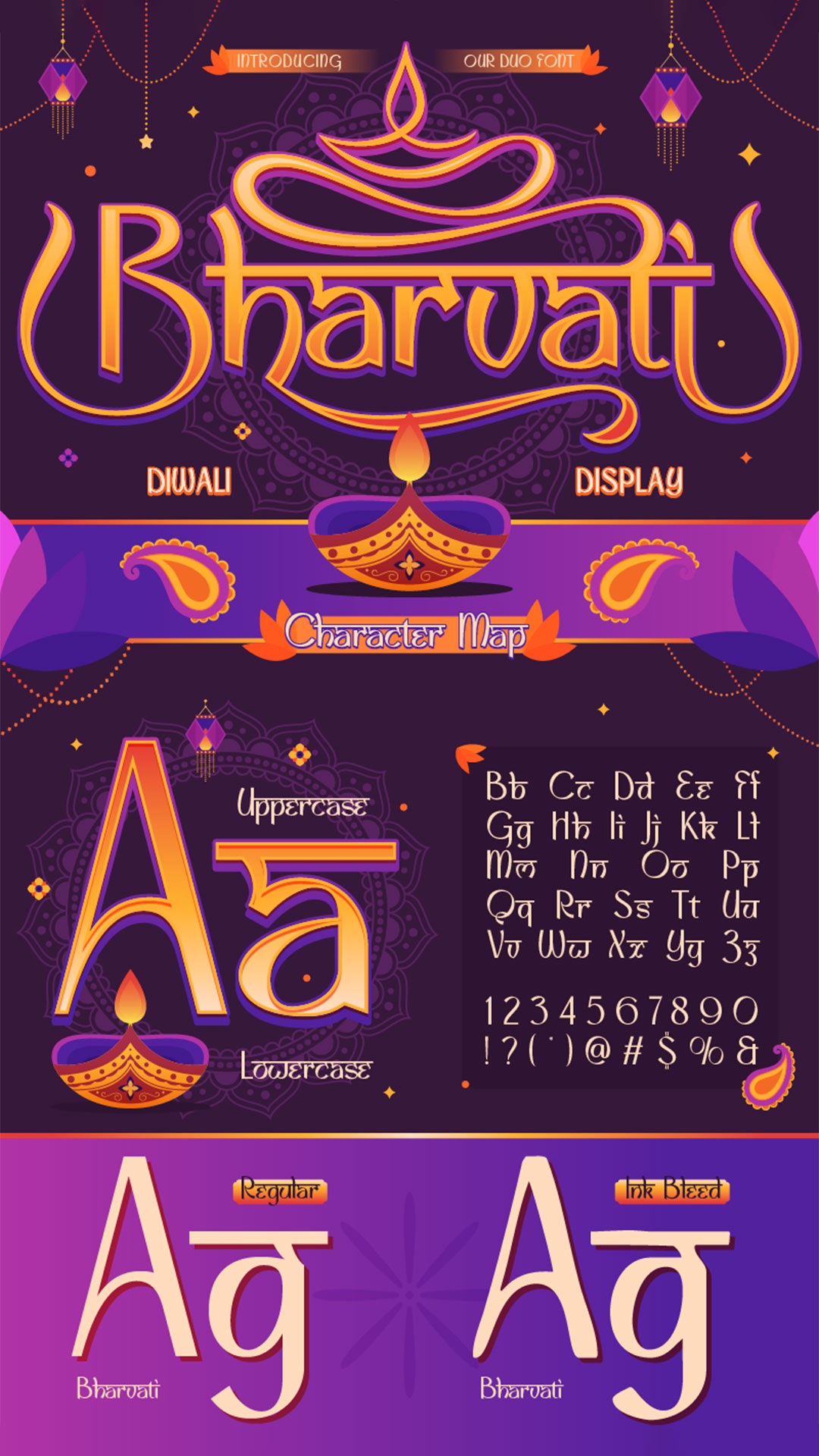
The beauty of an Indian-style font is that it’s not just for Diwali. Here are a few other creative ways to use it:
With so many possibilities, this font is not just seasonal, it’s versatile.
Diwali is the perfect time to explore bold and cultural typography. Whether you’re creating festive greetings or branding projects, Indian-inspired fonts will make your work stand out.